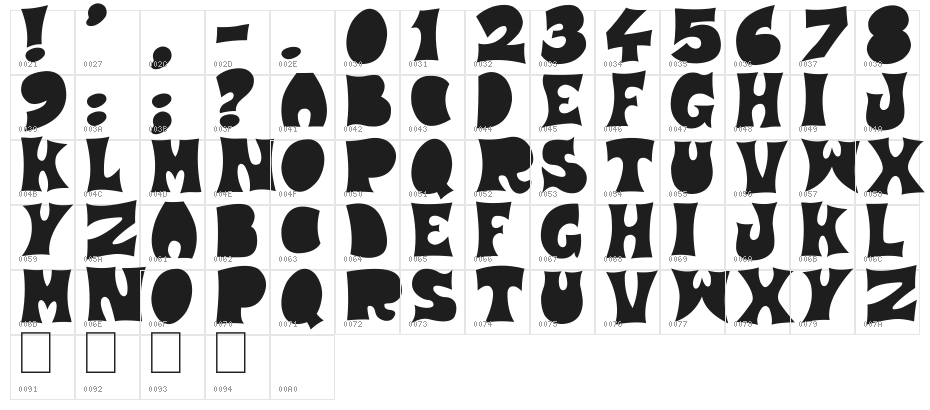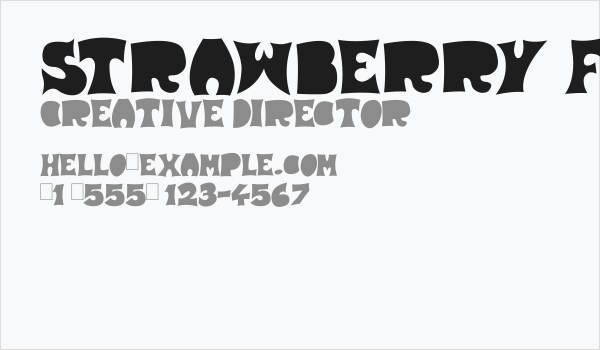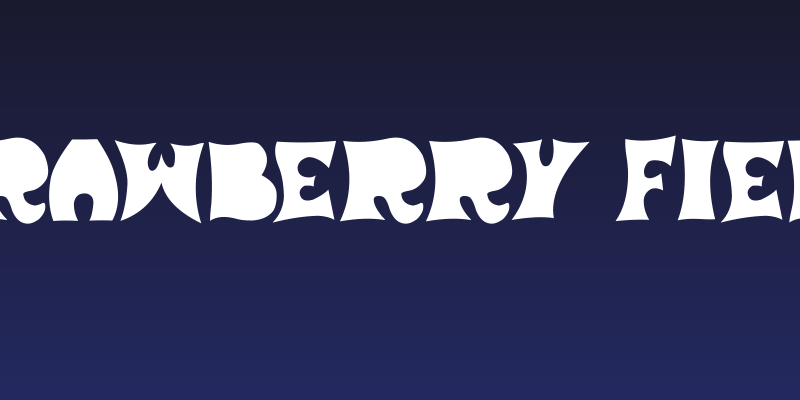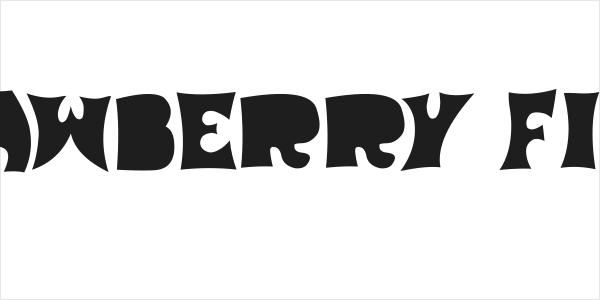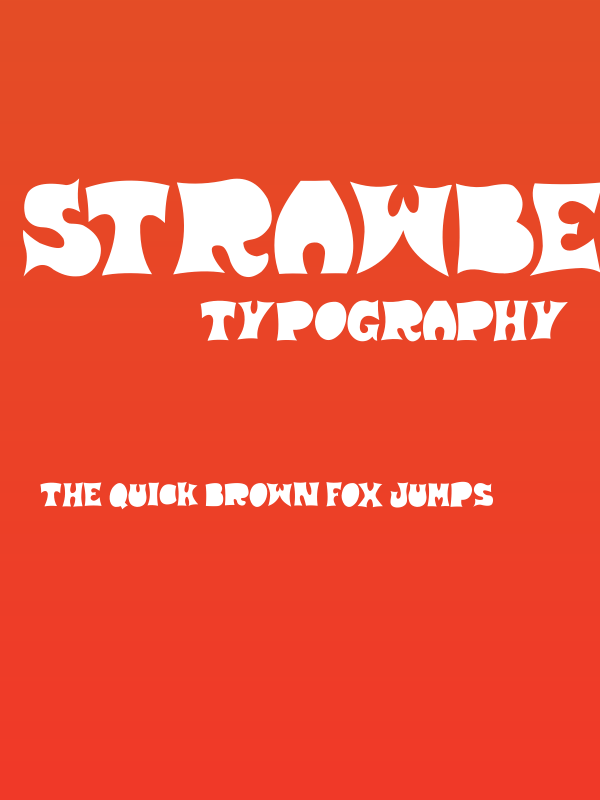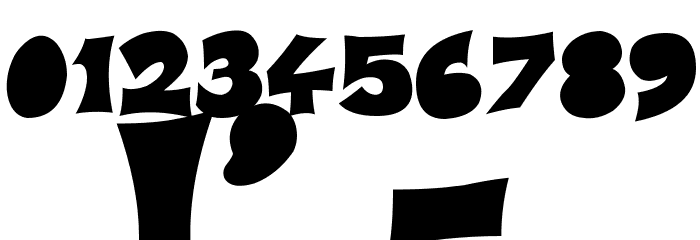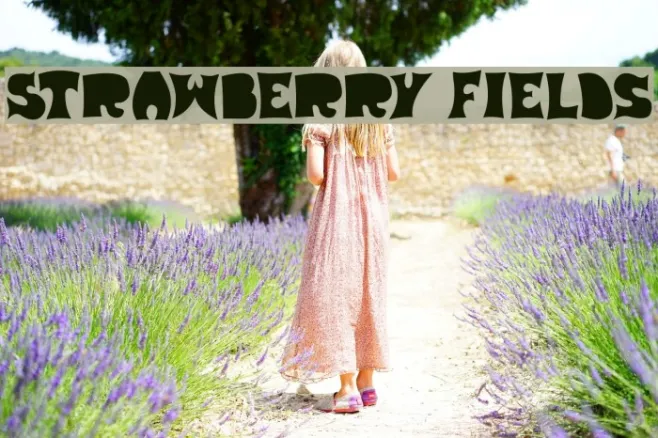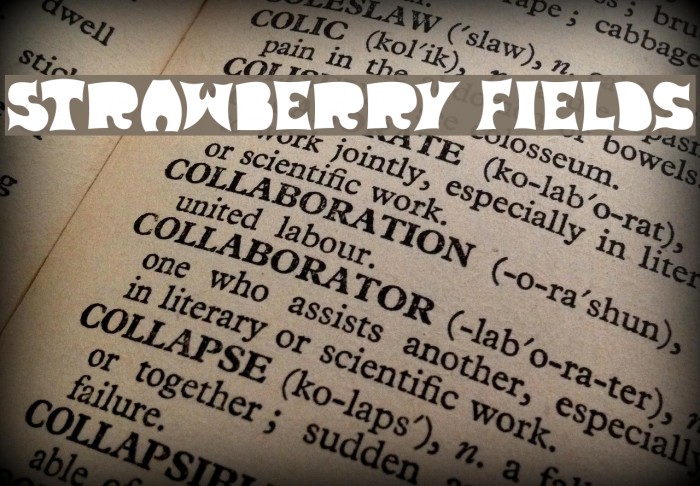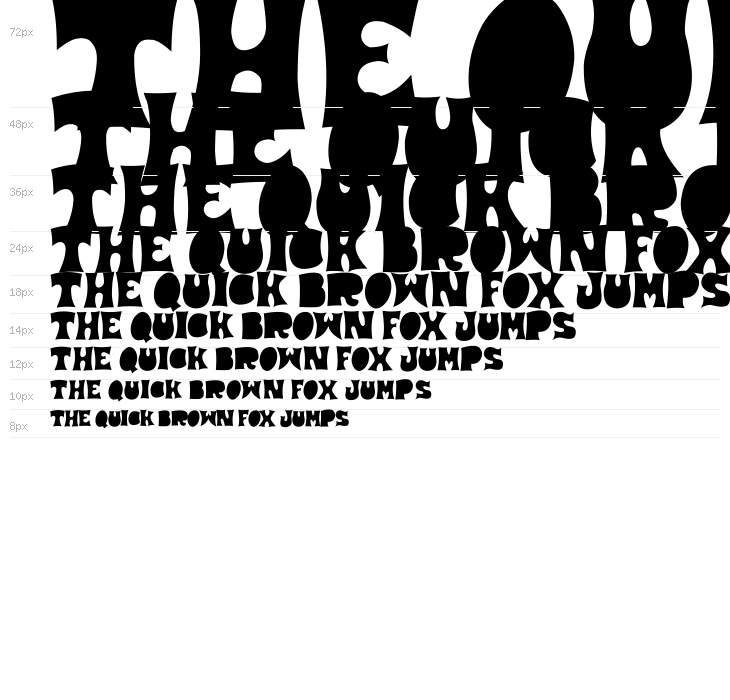
Strawberry Fields Font
Strawberry Fields Description
This font features a bold and playful design with exaggerated curves and whimsical shapes. The characters are highly stylized, with thick strokes and a unique, almost psychedelic appearance. The uppercase letters are particularly striking, with their bold presence and creative flair. The numbers and special characters follow the same playful theme, making the font suitable for eye-catching designs. The overall look is reminiscent of 1960s and 1970s retro styles, perfect for projects that require a fun and vibrant aesthetic.
| Overall Style | Vintage, Decorative |
| Proposed Projects | Ideal for posters, album covers, event flyers, and any project needing a retro or playful touch. |